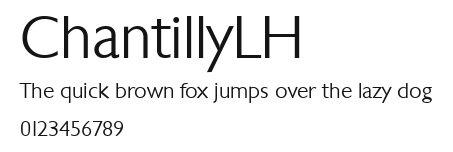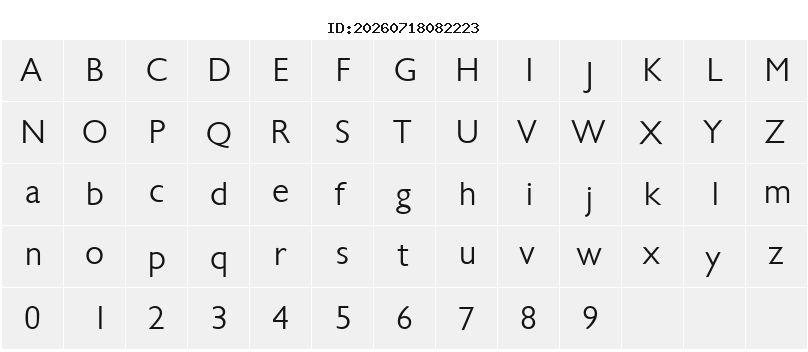
About ChantillyLH.ttf
ChantillyLH.ttf is a modern, elegant sans-serif font designed for ultimate readability and visual harmony. Perfect for branding, headlines, web design, and print materials.